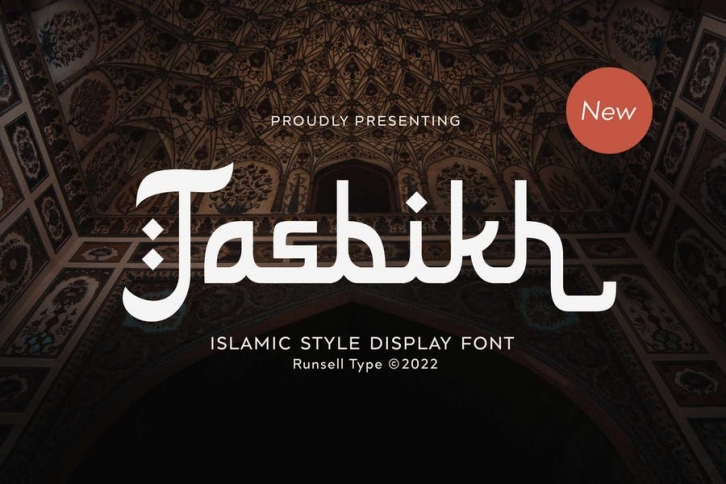
Runsell’s Font Product is perfect for many of your projects like logos & branding, photography, invitations, watermarks, advertisements, product designs, stationery, wedding designs, labels, product packaging, special events and much more.